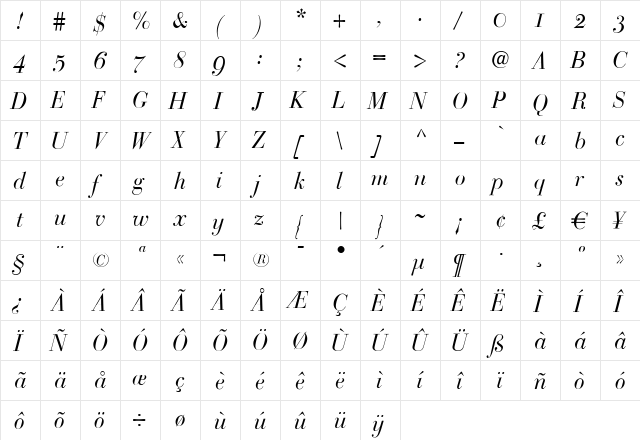
Bodoni Classic Italic
Design Context for Bodoni Classic Typeface
Bodoni Classic has the warm character of retro typography — evoking diners, record sleeves, and the golden age of print advertising. The dynamic lean of this cut emphasises speed and emphasis in any layout.
Perfect for vintage-inspired branding, retro packaging, nostalgia campaigns, and period-accurate editorial design.
Font Pairing: Combine Bodoni Classic with a simple slab or neutral sans — period-accurate companions reinforce the vintage feel without competing for attention.
Pro Tip: Use Bodoni Classic for headlines and pull quotes rather than body copy — its personality is best appreciated in short, focused bursts.